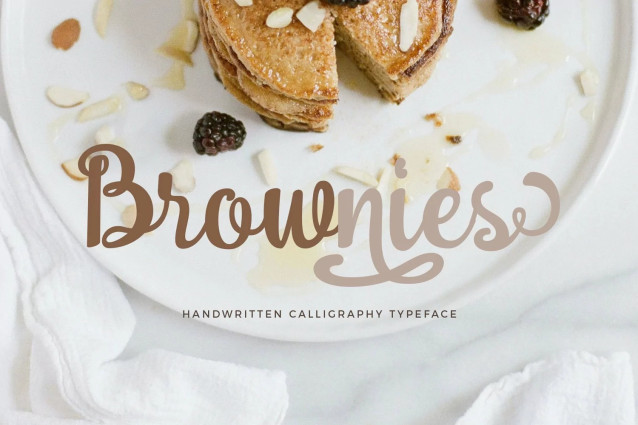
Brownies Font
Brownies Font is Fresh and modern font script with a handwritten calligraphy style, decorative characters, and a dancing baseline! So beautiful on the invitation like greeting cards, branding materials, business cards, quotes, posters, and more!Brownies Script comes with 581 glyphs totally. The alternative characters were divided into several Open Type features such as Swash, Stylistic Sets, Stylistic Alternates, Contextual Alternates, and Ligature. The Open Type features can be accessed by using Open Type savvy programs such as Adobe Illustrator, Adobe InDesign, Adobe Photoshop Corel Draw X version, And Microsoft Word. And this Font has given PUA Unicode (specially coded fonts). so that all the alternative characters can be accessed easily and in full by the craftsman or designer.